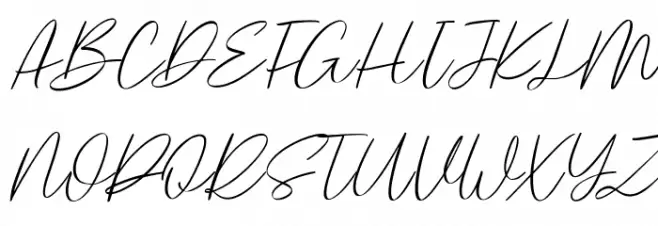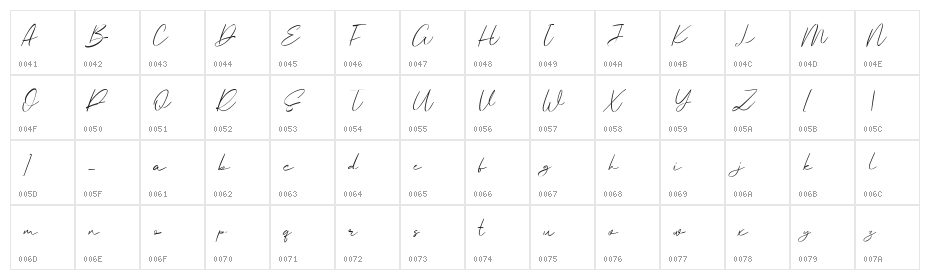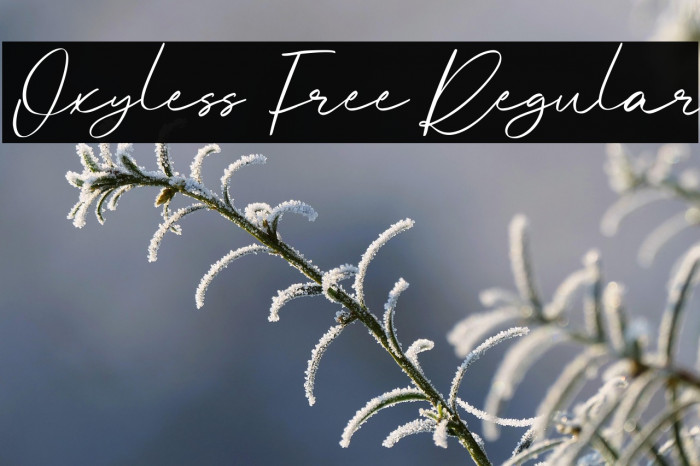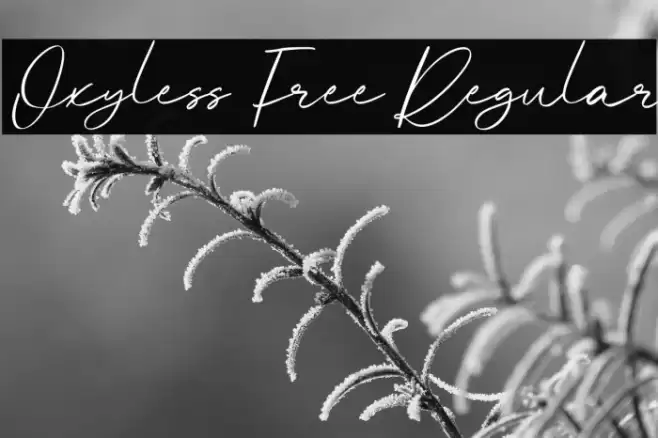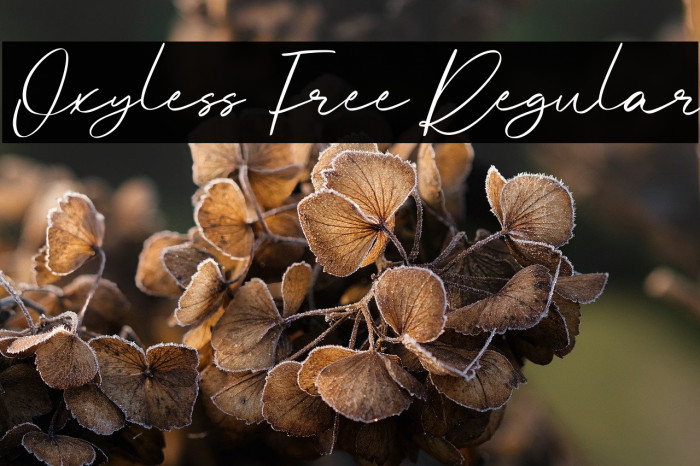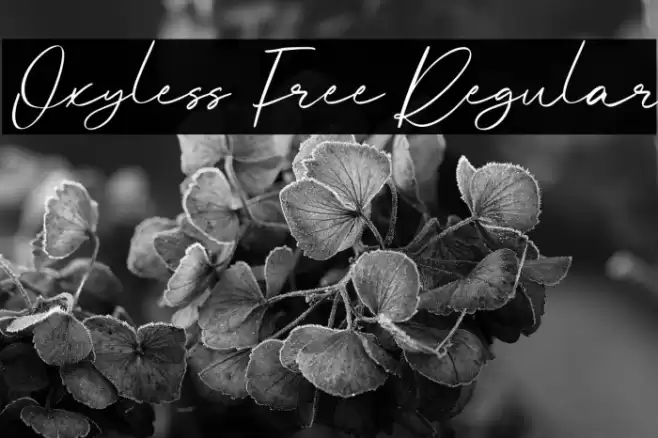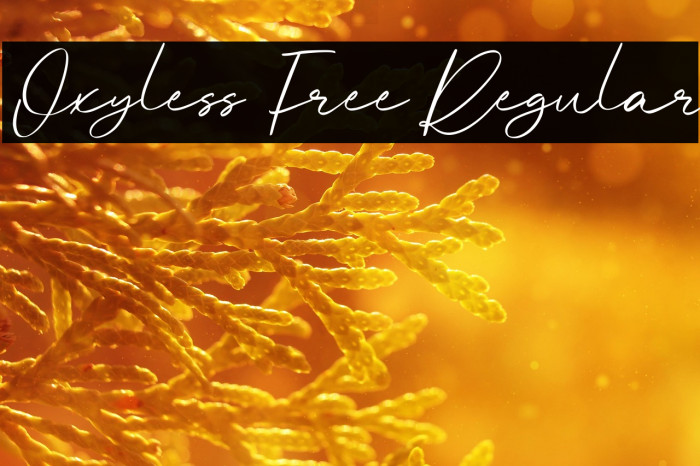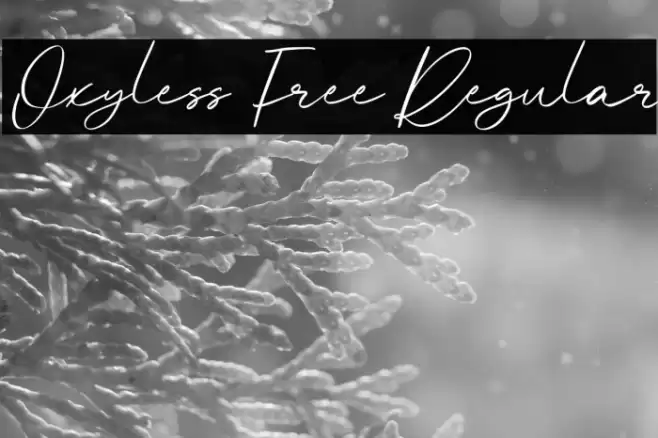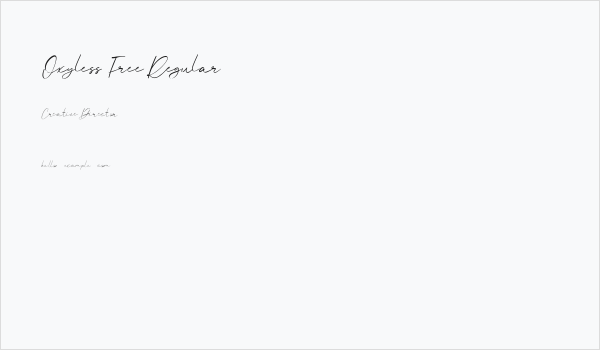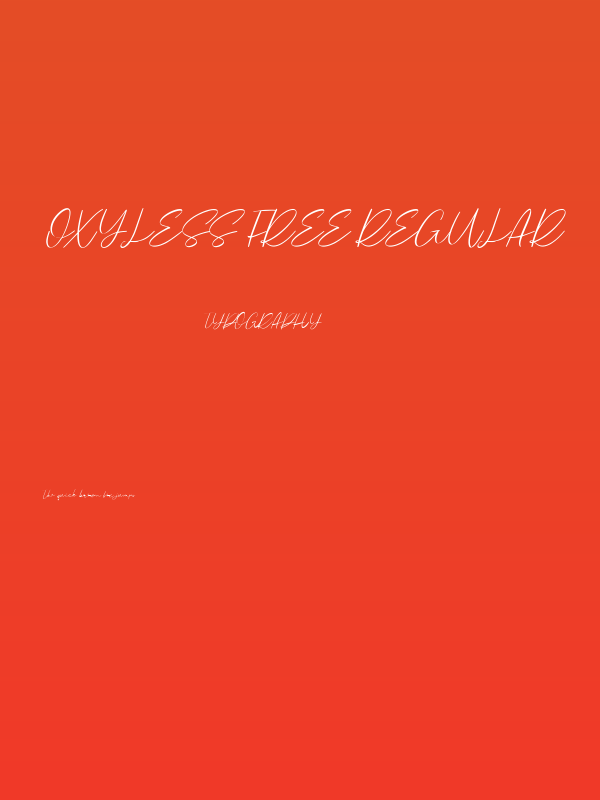
Oxyless Free Regular Font
Oxyless Free Regular Description
This font exudes a modern and elegant handwritten style, characterized by its fluid and continuous strokes. The uppercase letters are tall and slightly slanted, giving a sense of movement and grace. The lowercase letters maintain a consistent flow, with smooth connections between each character, enhancing its cursive appeal. The overall design is airy and light, with a delicate touch that adds sophistication. Its thin lines and subtle curves make it ideal for projects that require a personal and artistic touch, such as invitations, greeting cards, and branding materials. The font's legibility is maintained despite its script nature, making it versatile for both display and text purposes.